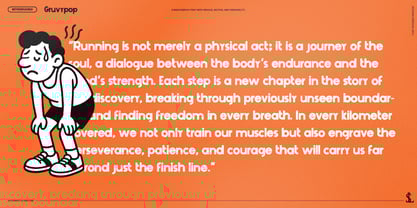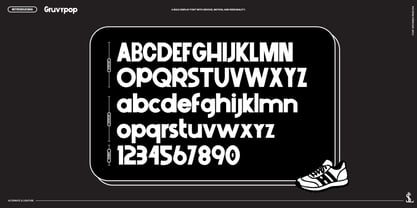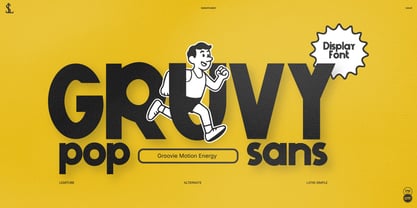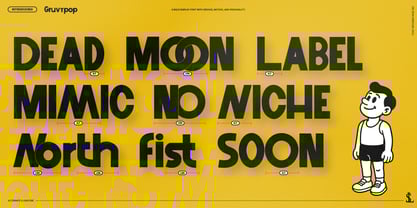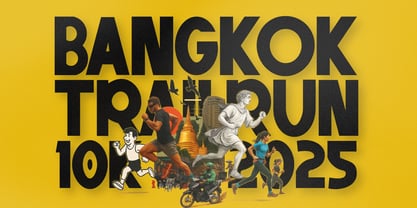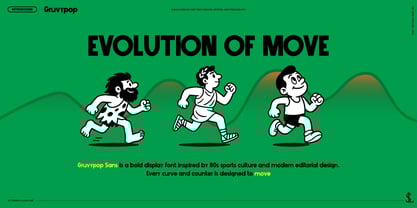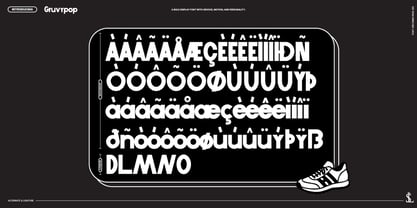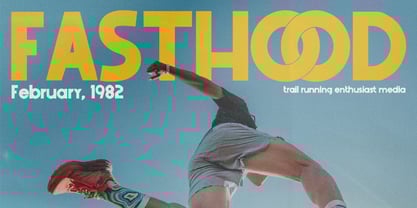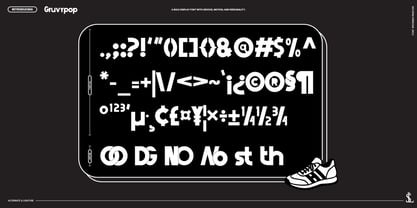
Gruvypop Display Sans
by Sundaylab
The Gruvypop Display Sans Font Family was designed by Adytia Purwo Wicaksono and published by Sundaylab. Gruvypop Display Sans contains 1 styles. More about this family
Gruvy Pop Sans is a bold display font inspired by 80s sports culture and modern editorial design. Every curve and counter is designed to move — bringing rhythm, energy, and attitude to your typography. Gruvy Pop blends retro athletic charm with geometric structure, creating a font that feels both nostalgic and fresh. It’s made for projects that move — from trail running campaigns to energetic lifestyle branding. Features: Uppercase & Lowercase Numbers & Punctuation Alternates & Ligatures Multilingual Support Bonus Badge Illustrations (Running Club Theme) Mockup is not included Perfect For: Sport Branding & Running Clubs Retro Posters & Editorial Design Music & Lifestyle Projects Type-driven Packaging & Logos Thank You
Designers: Adytia Purwo Wicaksono
Foundry: Sundaylab